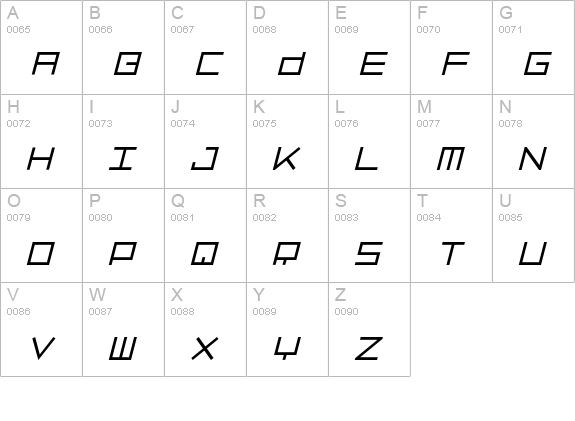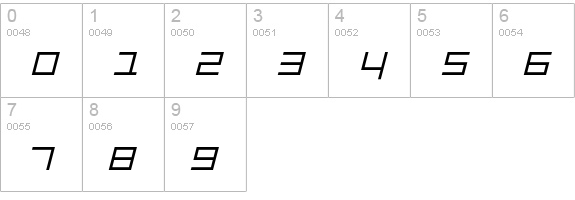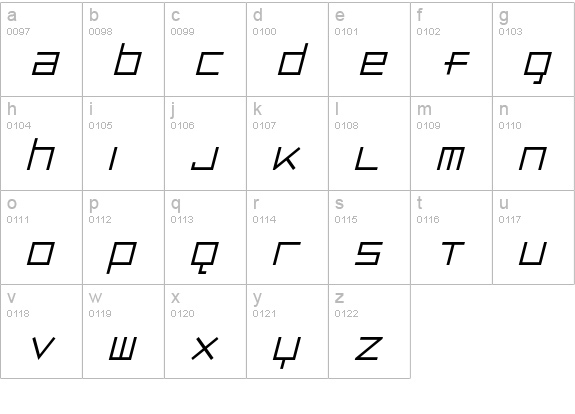
LuggageLightObl Font Details
LuggageLightObl font is a stunning display typeface that exudes elegance and sophistication. Its sleek and slender design is perfect for adding a touch of class to any project. With its unique oblique style, LuggageLightObl font stands out from the crowd and makes a bold statement. This font is versatile and can be used for various design projects such as logos, branding, posters, and more. The best part about LuggageLightObl font is that it is completely free to download at FontsMarket.com. This means you can easily access this beautiful font and use it in your designs without any cost. Whether you're a professional designer or a hobbyist looking to elevate your projects, LuggageLightObl font is a fantastic choice that won't break the bank. Download it today and add a touch of sophistication to your designs!